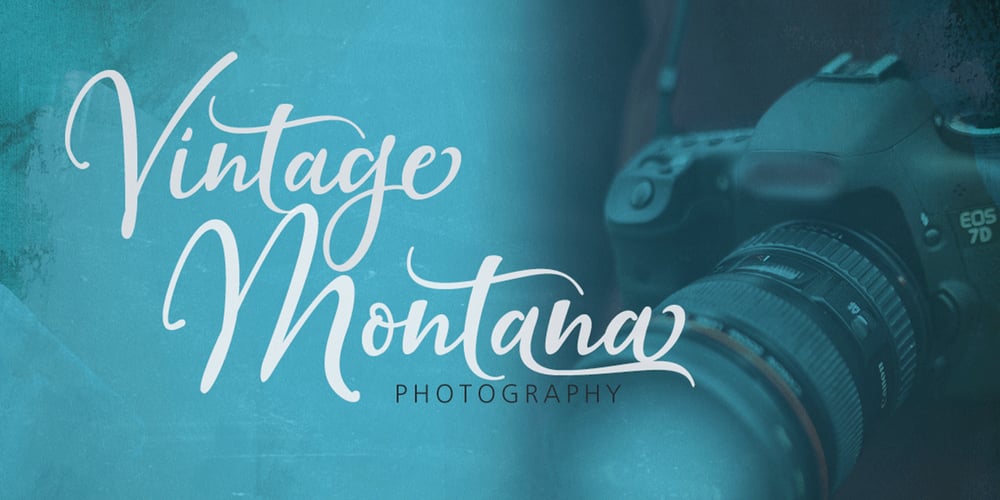
Just Beauty Font Family was designed by Roiyani Teungku and published by Groen Studio. Just Beauty contains 1 styles and family package options. Just Beauty is a smooth brush script which has a different style. This is the perfect choice for personal branding projects, but can also be used for various purposes such as headings, logos, wedding invitations, t-shirts, letterhead, labels, news, posters, badges etc. To enable the OpenType Stylistic alternates, you need a program that supports OpenType features such as Adobe Illustrator CS, Adobe Indesign and CorelDraw X6-X7.